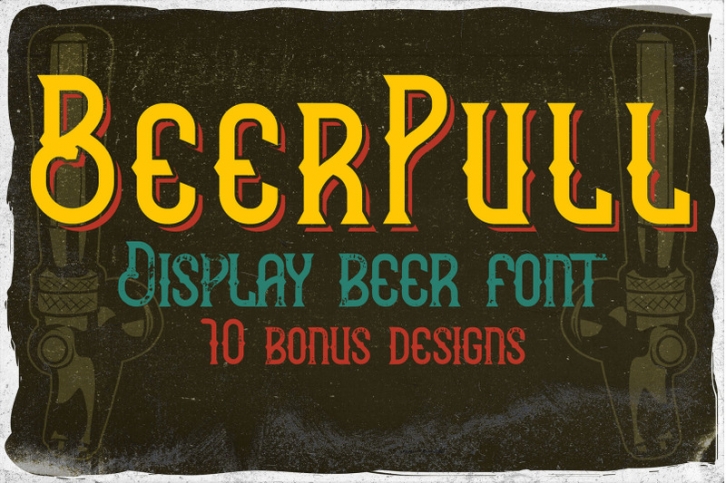
Introducing my newest font called "BeerPull". This font has wide language support of multilingual characters (check out all available characters in previews). Plus, 9 bonus Mexican-style t-shirt designs. This font will look good on any vintage-styled designs like a poster, T-shirt, label, logo, etc.
- A lot of additional symbols, alternative characters, and multilingual support.